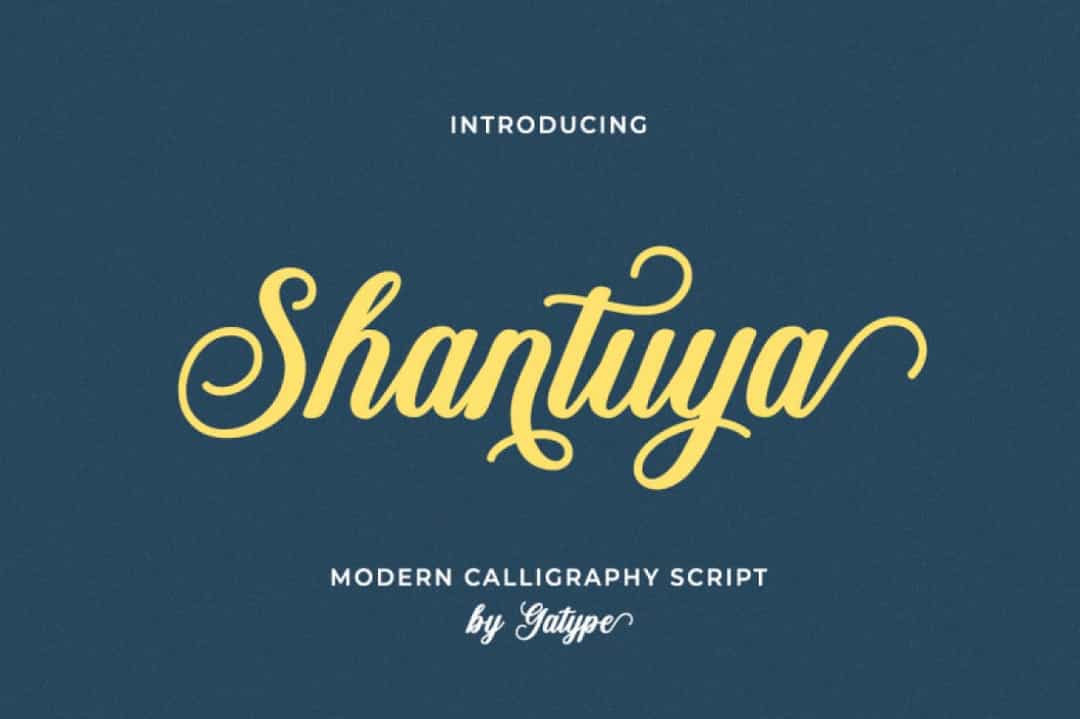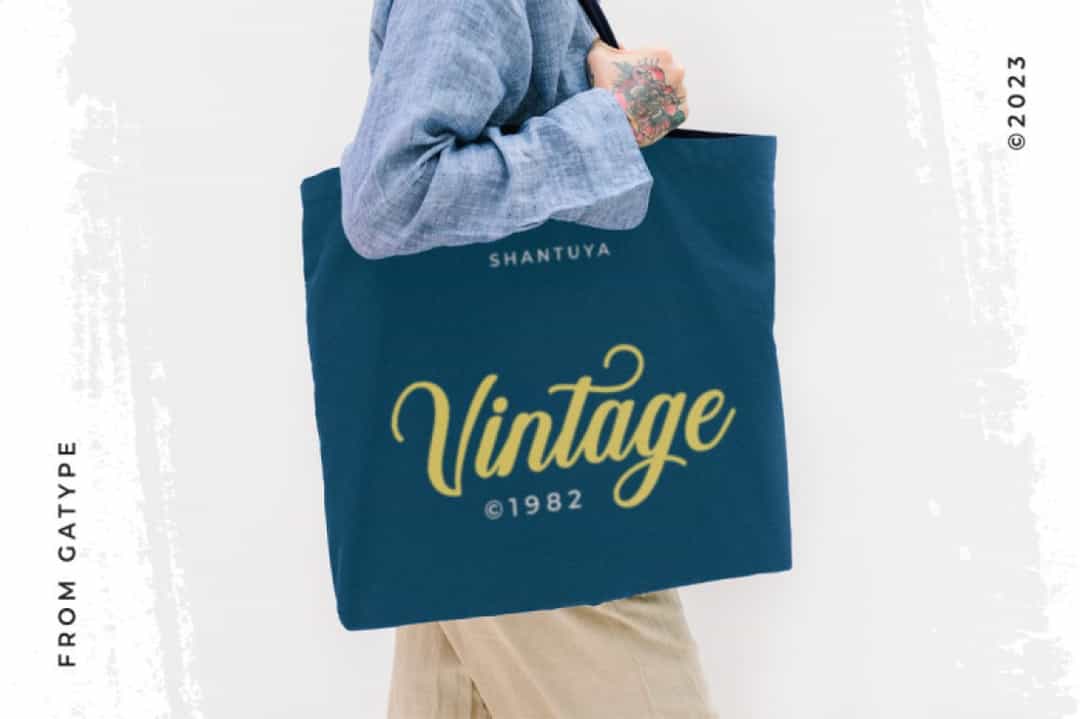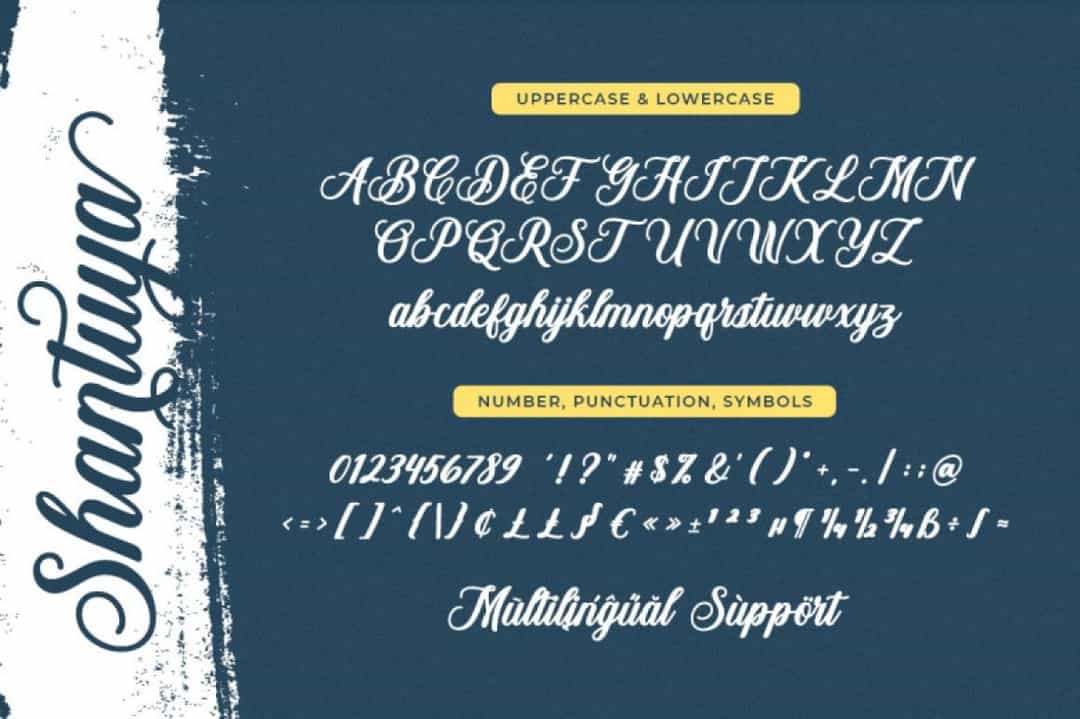
Shantuya can be described as an exquisite calligraphic script and typeface combination, offering its signature modernist flair with ease of readability in mind. Perfect for calligraphic projects and text titles alike! Shantuya’s relaxed yet graceful style make for easy reading – ideal in any setting from busy backgrounds to standalone titles!